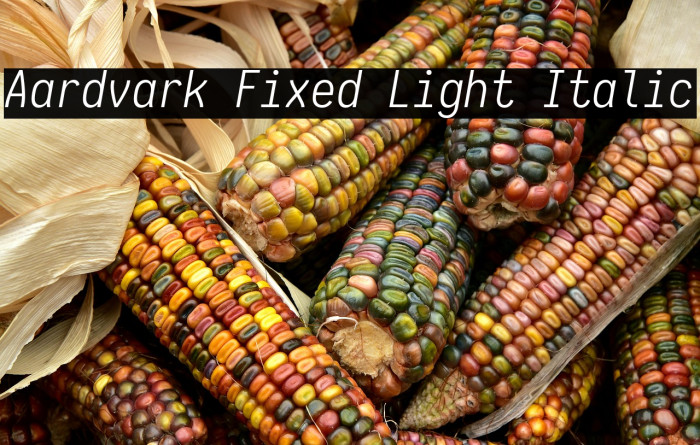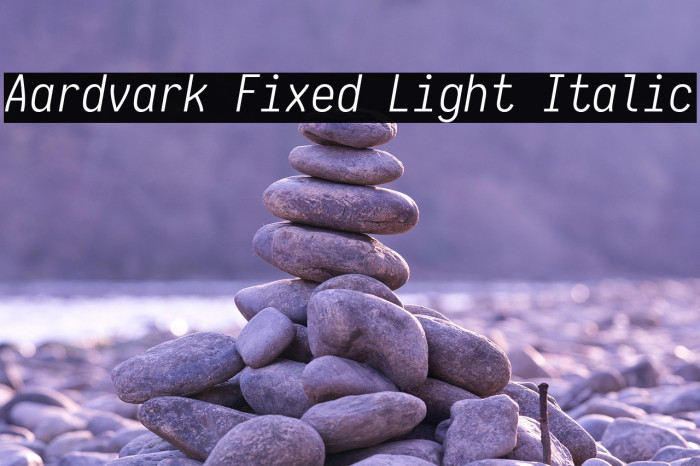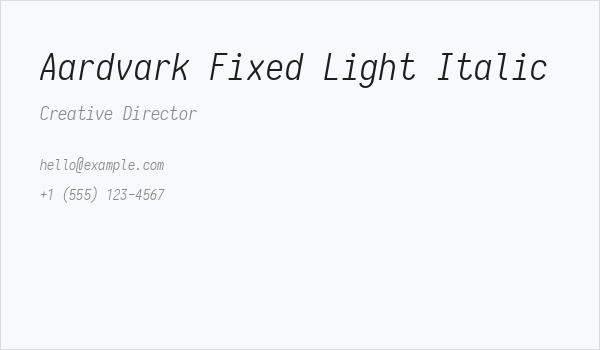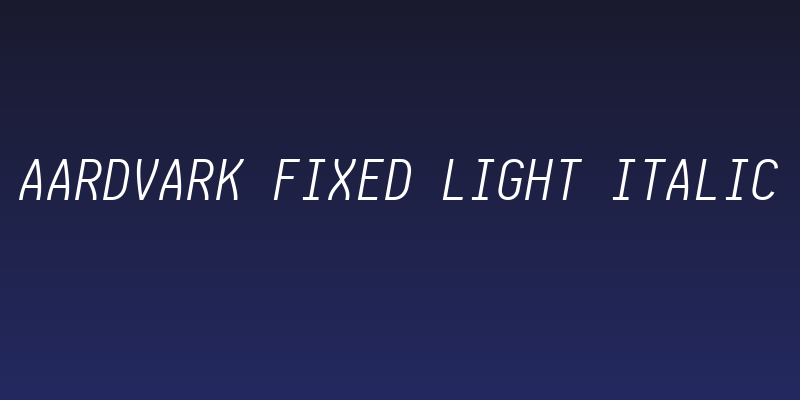
Aardvark Fixed Light Italic Font
Aardvark Fixed Light Italic Description
This font features a clean and modern design with a slight italic slant, giving it a dynamic and forward-moving appearance. The characters are uniformly thin, contributing to a light and airy feel. The sans-serif style ensures clarity and readability, making it suitable for various applications. The numerals and special characters maintain the same sleek and consistent style, ensuring a cohesive look across all text elements. The overall design is minimalistic, with a focus on functionality and elegance.
| Proposed Projects | Ideal for modern branding, editorial design, digital interfaces, and minimalist posters. |